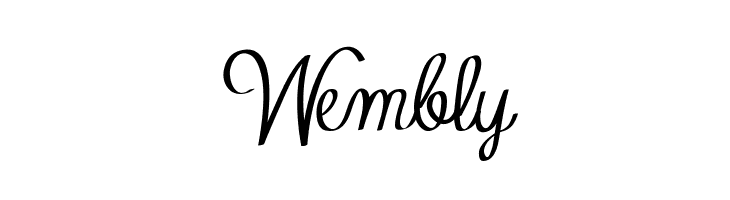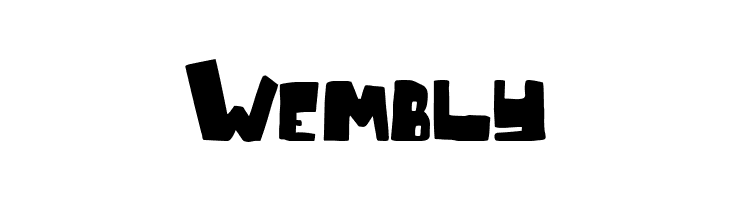
• Contribute_FREE-version
An elegant, flowing script font with intricate loops and swirls.
• Conventional Wisdom
A bold, playful font with chunky, hand-drawn characters.
• cool hand pk
A bold, expressive handwritten font with dynamic strokes.
• Cool Unkle Free Regular
A bold, playful handwritten font with a modern, dynamic style.
• CoolDrawings
An artistic display font featuring intricate illustrations for each character.
• Cooler South St
A bold, playful font with thick outlines and a cartoonish style.
• Coolgumz_PersonalUseOnly
A bold, playful font with rounded edges and a retro vibe.
• coop deville
A bold, distressed font with a grunge aesthetic.
• Coopslight Free Regular
A sophisticated and elegant script font with fluid, graceful strokes.
• Copasetic NF
A geometric, art deco-inspired font with bold, angular lines and sharp edges.
• Copasetic NF Bold
A bold, geometric font with an Art Deco influence, featuring sharp angles and smooth curves.
• CopaseticNF-Bold
A bold, geometric typeface with Art Deco influences and modern flair.
• Copper Canyon Inline WBW
A bold, inline font with a strong, impactful presence.
• Copper Canyon WBW
A bold, heavy font with strong geometric shapes and high contrast.
• CopperCanyonInlineWBW
A bold, inline font with strong contrast and modern appeal.
• CopperCanyonWBW
A bold, impactful font with thick strokes and tight spacing, perfect for strong visual statements.
• Coptic Eyes Coptic
• Coptic Eyes Latin
• Corinthian
An artistic, calligraphic font with flowing, organic shapes.
• Cork
A bold, textured font with a cork-like pattern, perfect for creative projects.